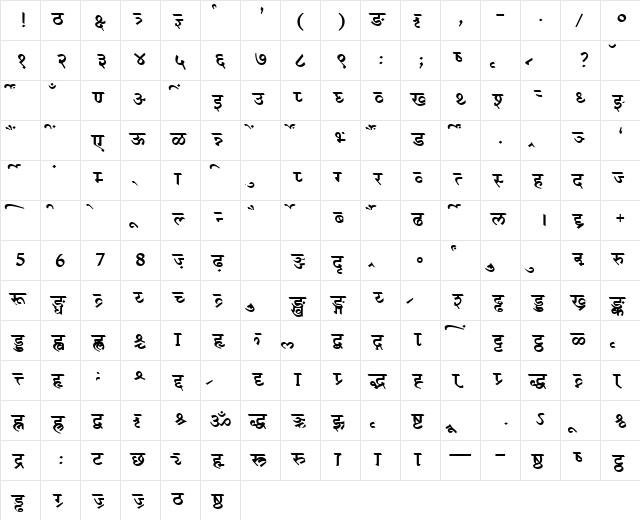
AkrutiDevRahul Bold
Design Context for AkrutiDevRahul Typeface
AkrutiDevRahul takes a measured approach to typography — its balanced proportions and neutral character make it a reliable workhorse for both digital and print work. The heavy weight commands attention and anchors typographic hierarchies.